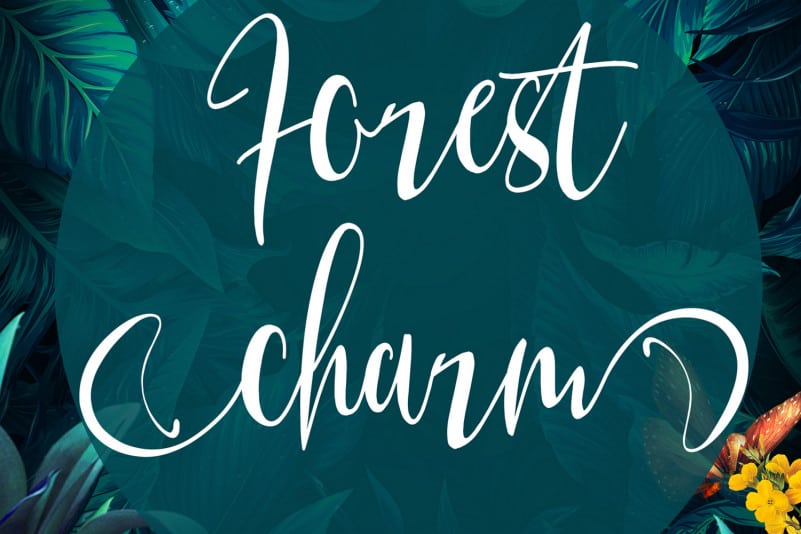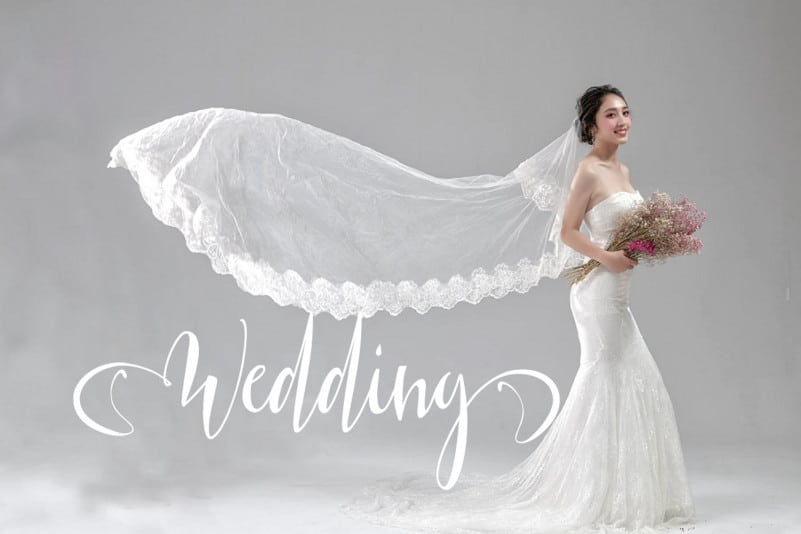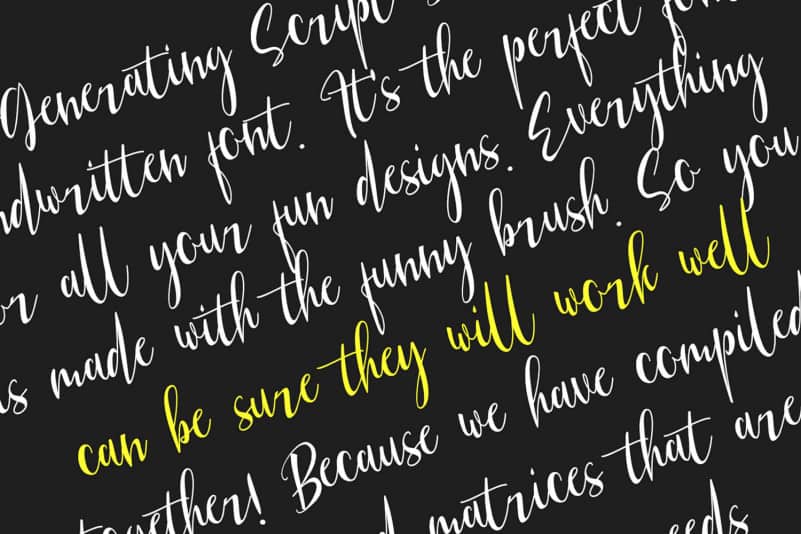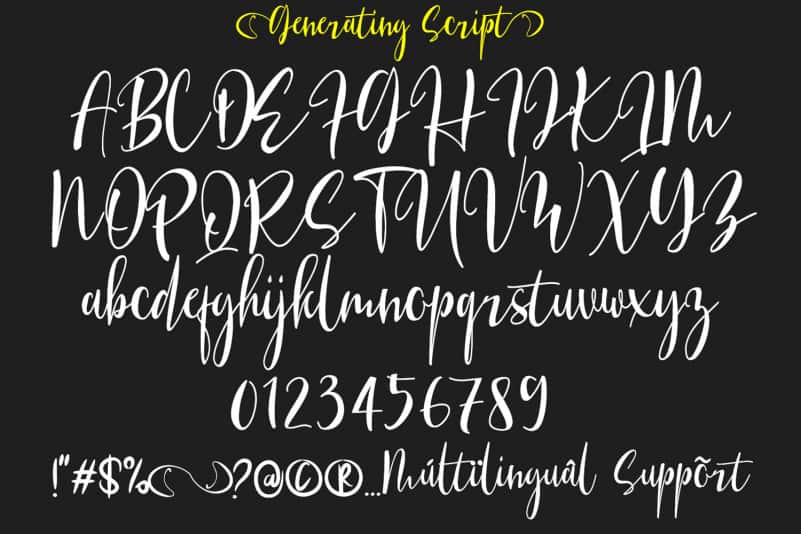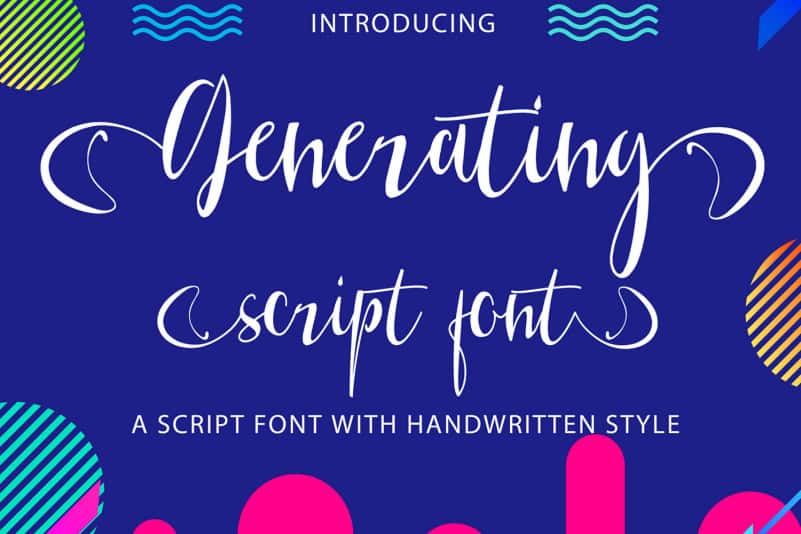
Generating Script Demo Font
Generating Script Demo Font is a handwritten font. It’s the perfect font for all your fun designs. Everything is made with the funny brush. So you can be sure they will work well together! Because we have compiled kerning and matrices that are tailored to your needs.
Generating Script Demo Font is perfect for branding projects, logo, wedding designs, social media posts, advertisements, product packaging, product designs, label, photography, watermark, invitation, stationery and any projects.
Features :
• Character Set A-Z
• Numerals & Punctuations (OpenType Standard)
• Accents (Multilingual characters)
• Contextual Alternates
• Swash
• Stylistic Alternates